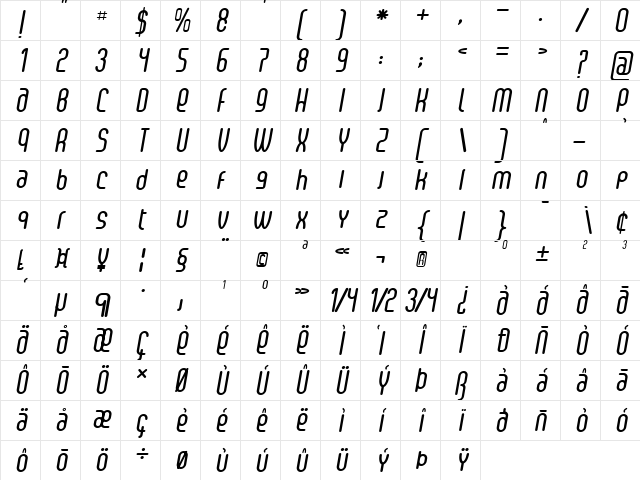
Senzi Bold Italic
Foundry: Alberto Villanueva
Designer: Alberto Villanueva
Design Context for Senzi
Senzi is a composed and adaptable typeface that performs quietly and consistently across a wide range of design contexts. The slanted form adds forward momentum and visual energy. Its bold stroke weight gives it real presence on the page.